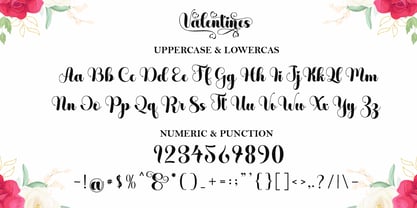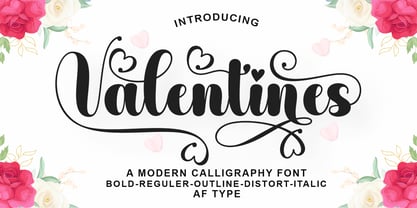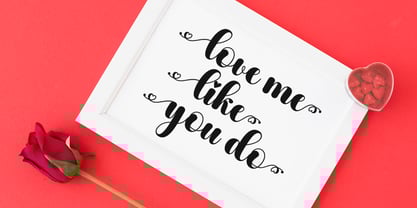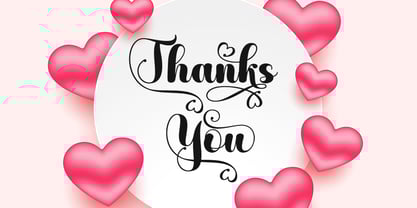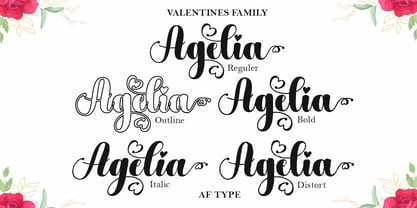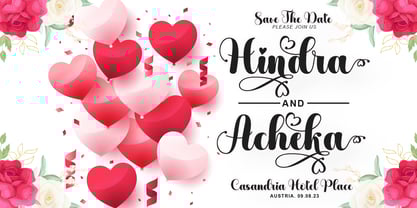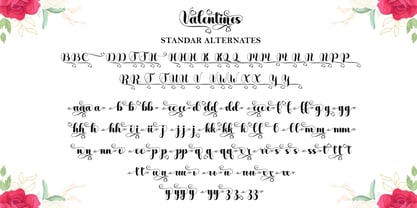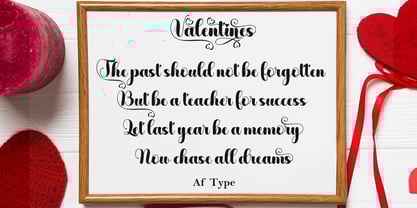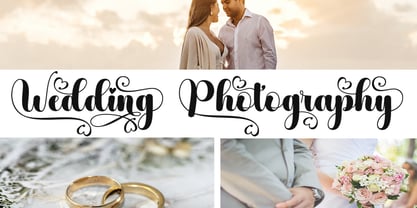
Valentines
by AF Type
The Valentines Font Family was designed by Al Qausar Firdaus and published by AF Type. Valentines contains 5 styles and family package options.
This font is a smooth, elegant, and flowing handwritten font. It has a beautiful and unique blend of ligatures on each letter, so the author arranged them with a little swirling embedding, resulting in a modern font that is ready to make a statement by adding an elegant and unique style to your next design project. Add to it your most creative ideas and watch this font bring them to life!